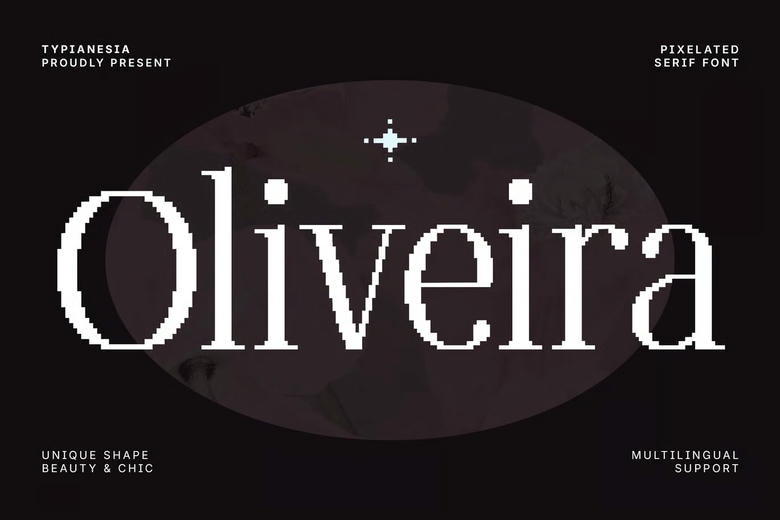
Oliveira Font
Oliveira is a unique pixelated serif typeface designed to add a modern, unique and stylish look to your projects. With a vintage retro and a modern twist, Oliveira can be used in a plethora of creative projects such as branding, logo creation, web creating, poster, packaging, and advertising campaign, social media graphics, and any other projects that might need a touch of unique and leave an unforgettable impression, it has a strong multi-lingual back up, and you can reach hundreds of people all over the world.
Moreover, its ligature and alternate character capabilities enable you to experiment with typography, and make absolutely novel text compositions. The best font is oliveira. Add pixelated charm and originality to all of your productions.
Oliveira Modern Pixelated Serif Font